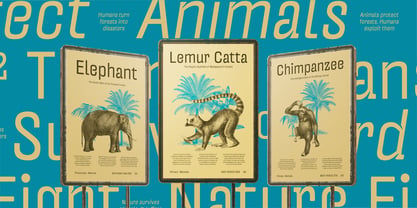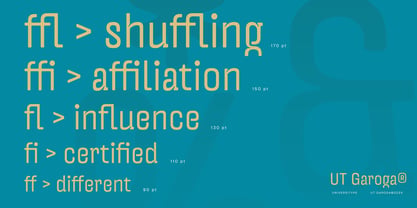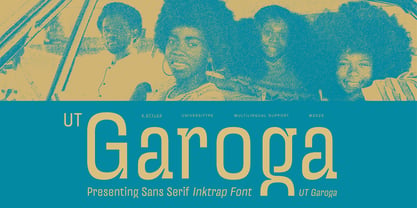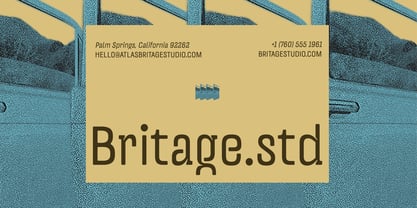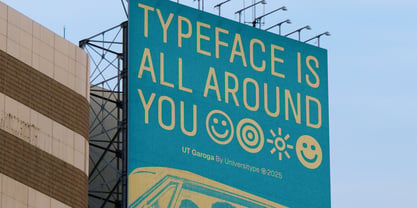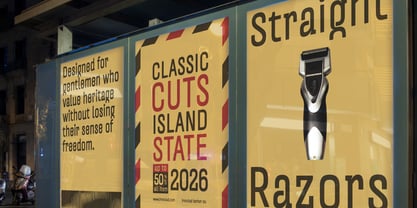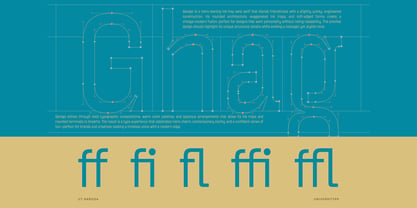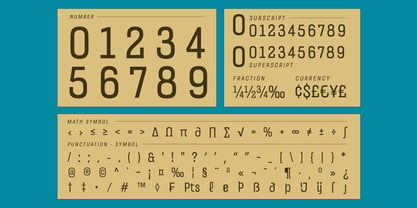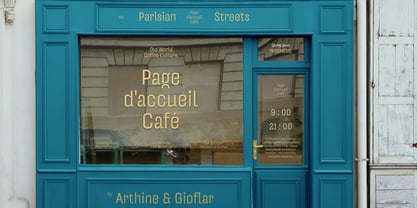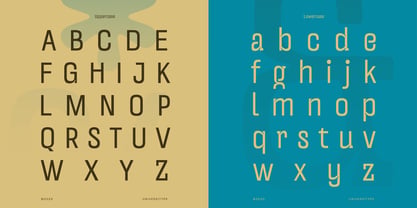
UT Garoga
por Universitype
La familia tipográfica UT Garoga fue diseñada por Muh. Aswar, Andi Syahdang y publicada por Universitype. UT Garoga contiene 4 estilos y opciones de paquete familiar. Más información sobre esta familia
UT Garoga is a retro-leaning ink-trap sans serif designed to bring warmth, personality, and structure into one visual voice. Its rounded construction, expressive ink traps, and soft terminals create a friendly rhythm, while the engineered shapes keep everything feeling sharp and intentional. UT Garoga works beautifully in bold compositions, letting its quirky details shine without losing clarity. With four flexible styles, this typeface adapts easily—from clean and crisp layouts to softer, rounded expressions—making it a solid choice for modern branding with a nostalgic twist. Font Styles Regular Rounded Oblique Ideal For Branding and visual identity Logos and wordmarks Editorial headlines Posters and print layouts Packaging and labels Social media graphics Website headers Key Features Ink-trap details for distinctive character Rounded geometry with smooth curves Display-focused letterforms Balanced proportions for strong readability 400+ glyphs Multilingual support
Diseñadores: Muh. Aswar, Andi Syahdang
Fundición: Universitype